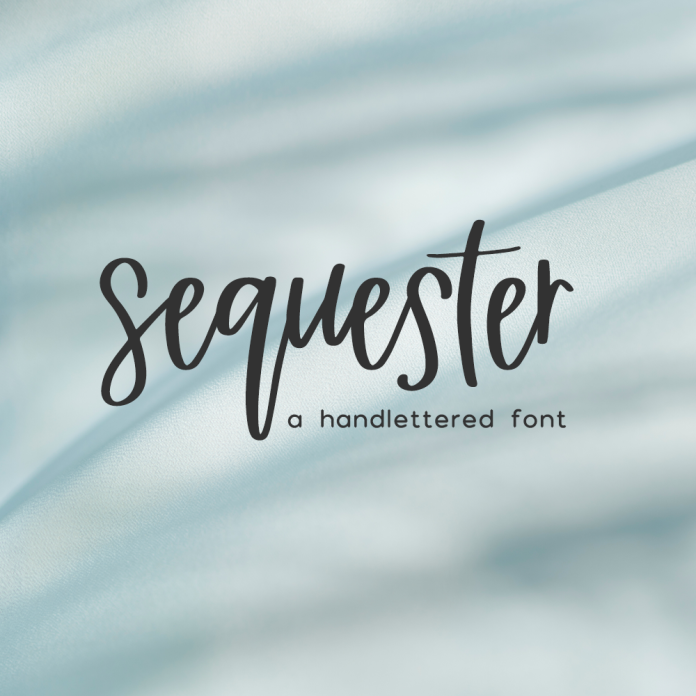
Sequester Script Font
Introducing Sequester Script, a handwritten signature style font. This chic, stylish font features a messy, casual look, mimicking handwriting with just enough playful feminine bounce. Sequester Script is best for: - logos + branding, like beauty, cosmetics, and health brands - website design + website accents - think design blogs, travel blogs, fashion blogs, & more - clean print design, like magazines + flyers - header elements that need handwritten touch - quote graphics for social media Sequester includes: - full upper + lowercase characters - numbers + punctuation - 32 lowercase alternate characters - 2 ligatures - ll, tt - Western European Language Support - PUA-encoding